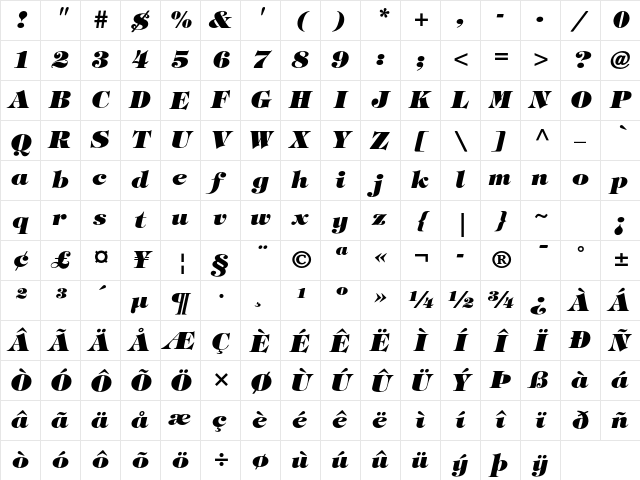
ITC Tiffany Std Heavy Italic
Style: Heavy Italic
Designer: Ed Benguiat
Design Context for ITC Tiffany Std
ITC Tiffany Std is a composed and adaptable typeface that performs quietly and consistently across a wide range of design contexts. The slanted form adds forward momentum and visual energy.
Pro Tip: Use ITC Tiffany Std for emphasis, pull quotes, and subheadings where its slanted energy can add rhythm to the layout.